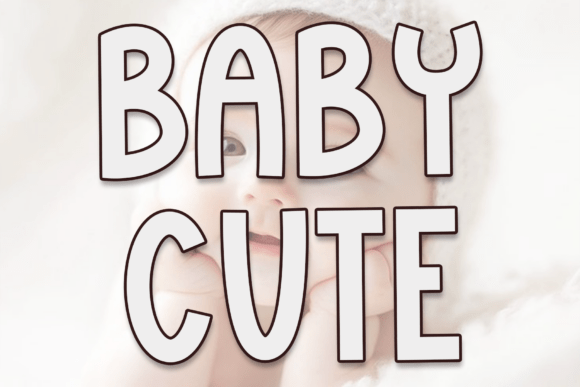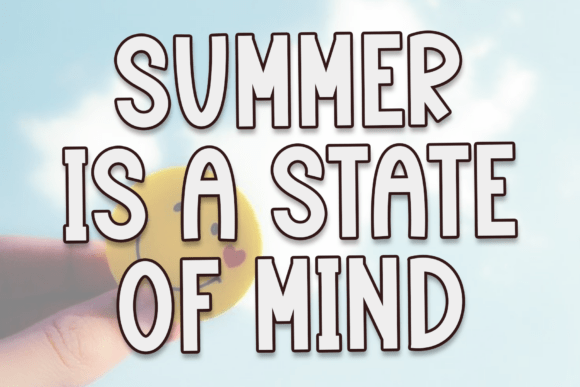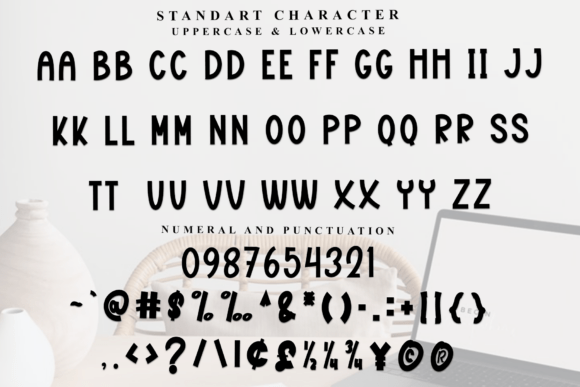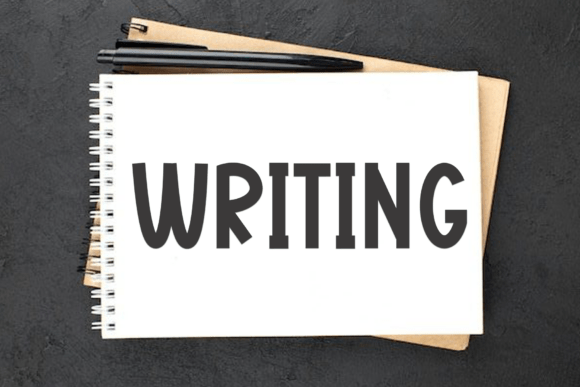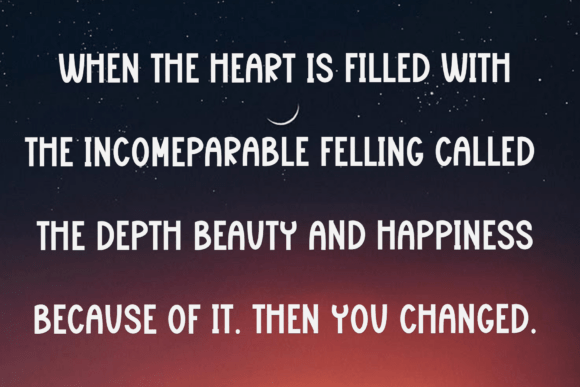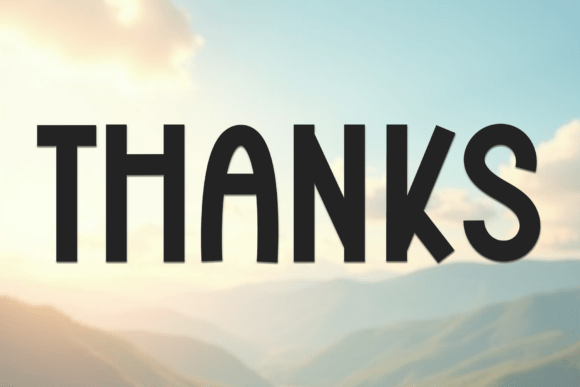
Introduction to School Subject Font Font
Fonts play a crucial role in design, and the School Subject Font font is a typeface that brings both character and versatility to any project. Whether you’re working on a branding project, a website, or a print design, the School Subject Font font offers a unique style that can elevate your work.
School Subject is a sweet and friendly handwritten font.
Key Features of School Subject Font Font
Why Choose School Subject Font Font?
The School Subject Font font is more than just a typeface – it’s a design tool that helps you communicate your message with style and clarity. Its unique character set and versatile design make it suitable for a wide range of applications, from elegant invitations to bold headlines.
With its carefully crafted letterforms and balanced proportions, the School Subject Font font ensures readability and visual appeal across all mediums.
What makes School Subject Font font special?
The School Subject Font font stands out with its unique design, exceptional readability, and versatility across various design applications.